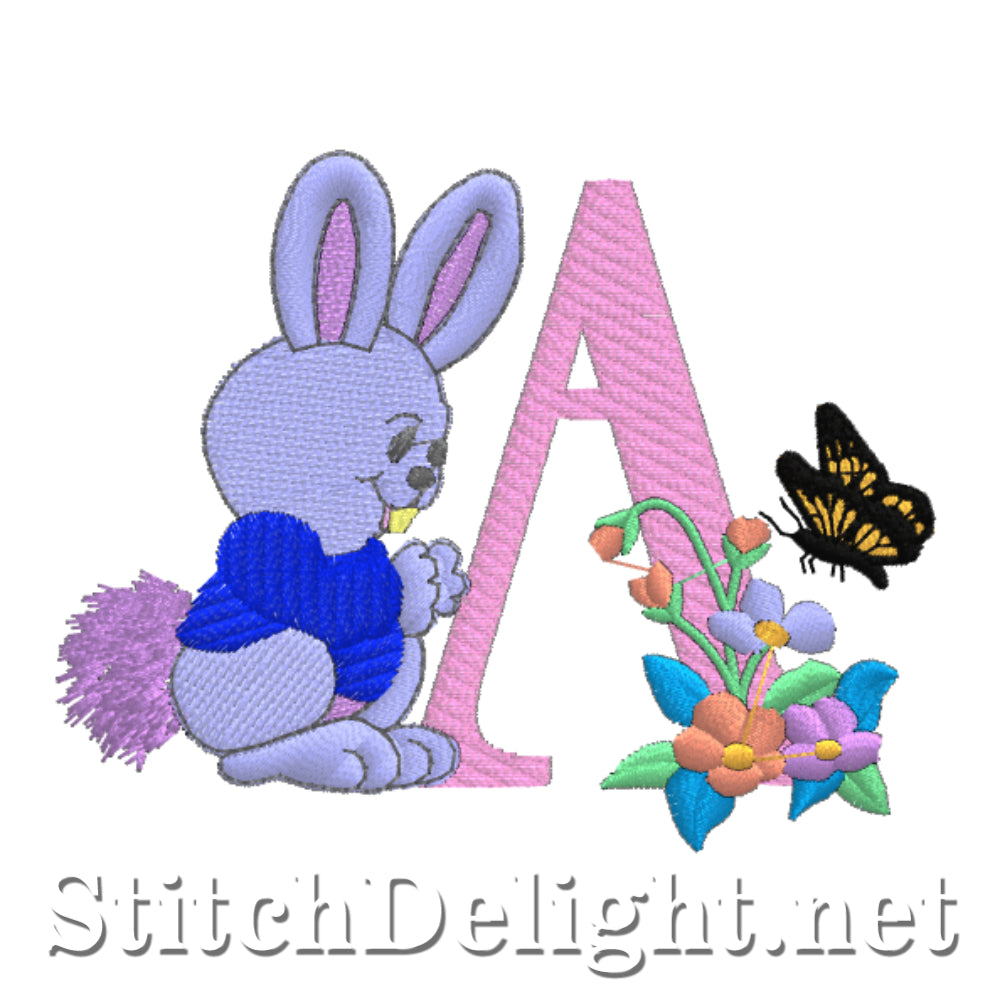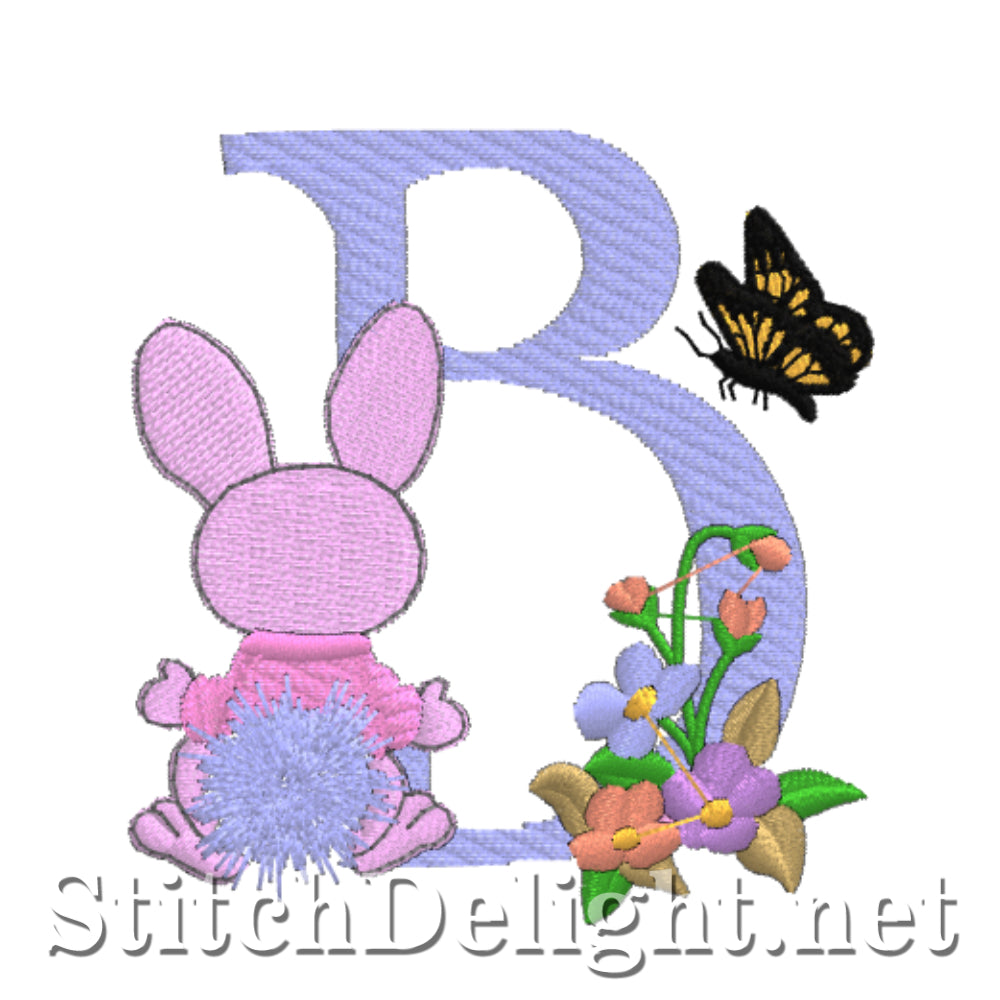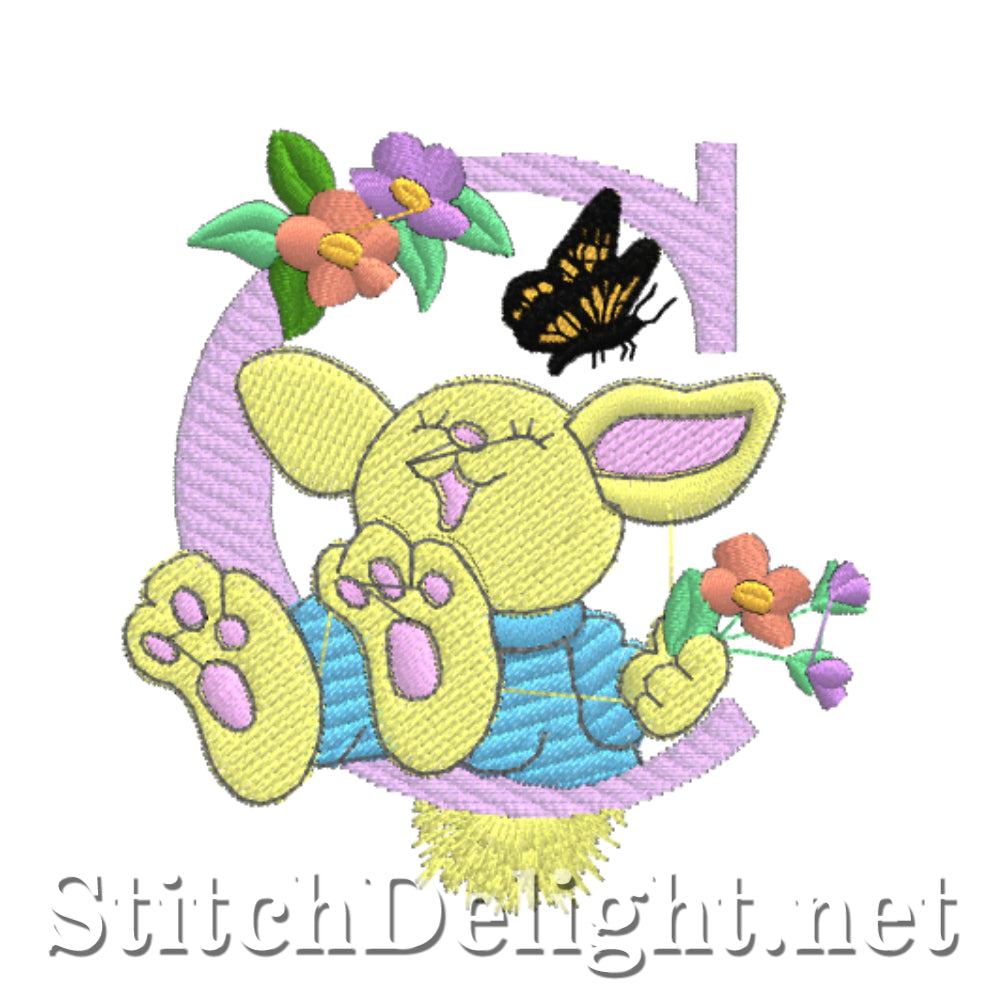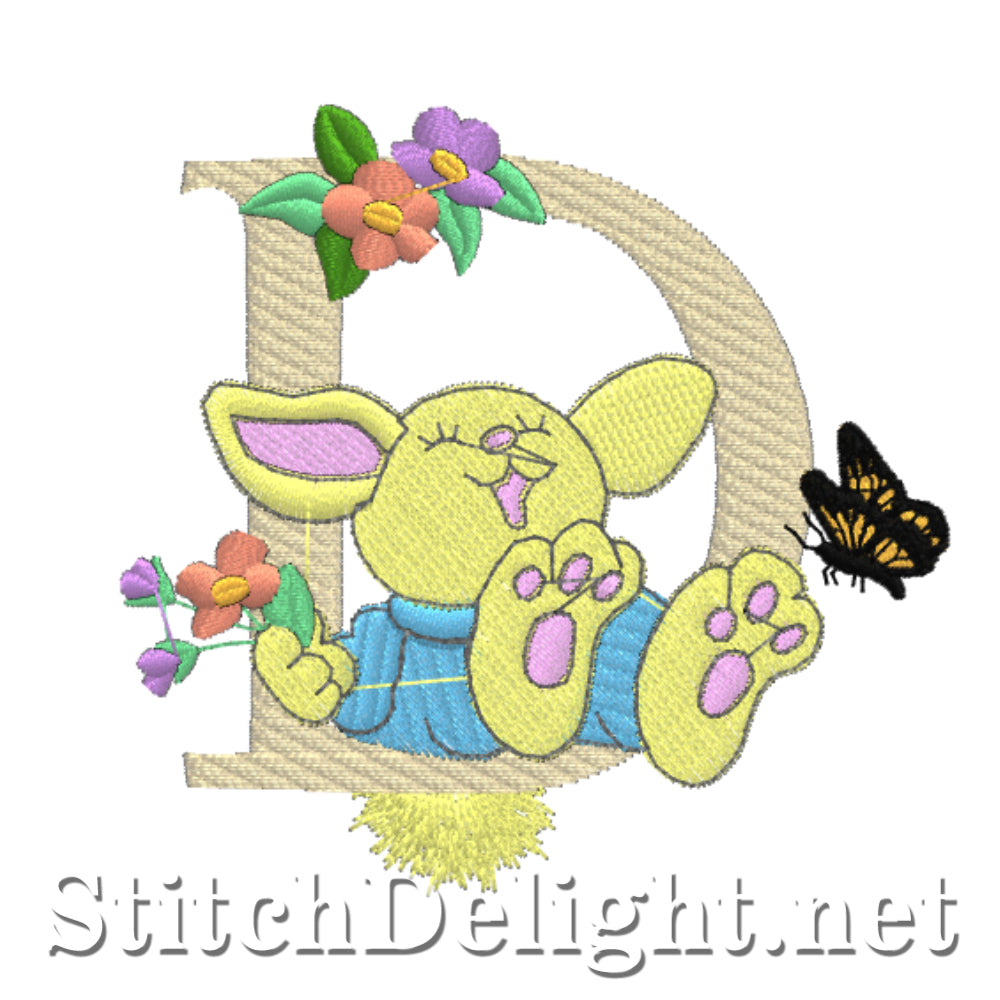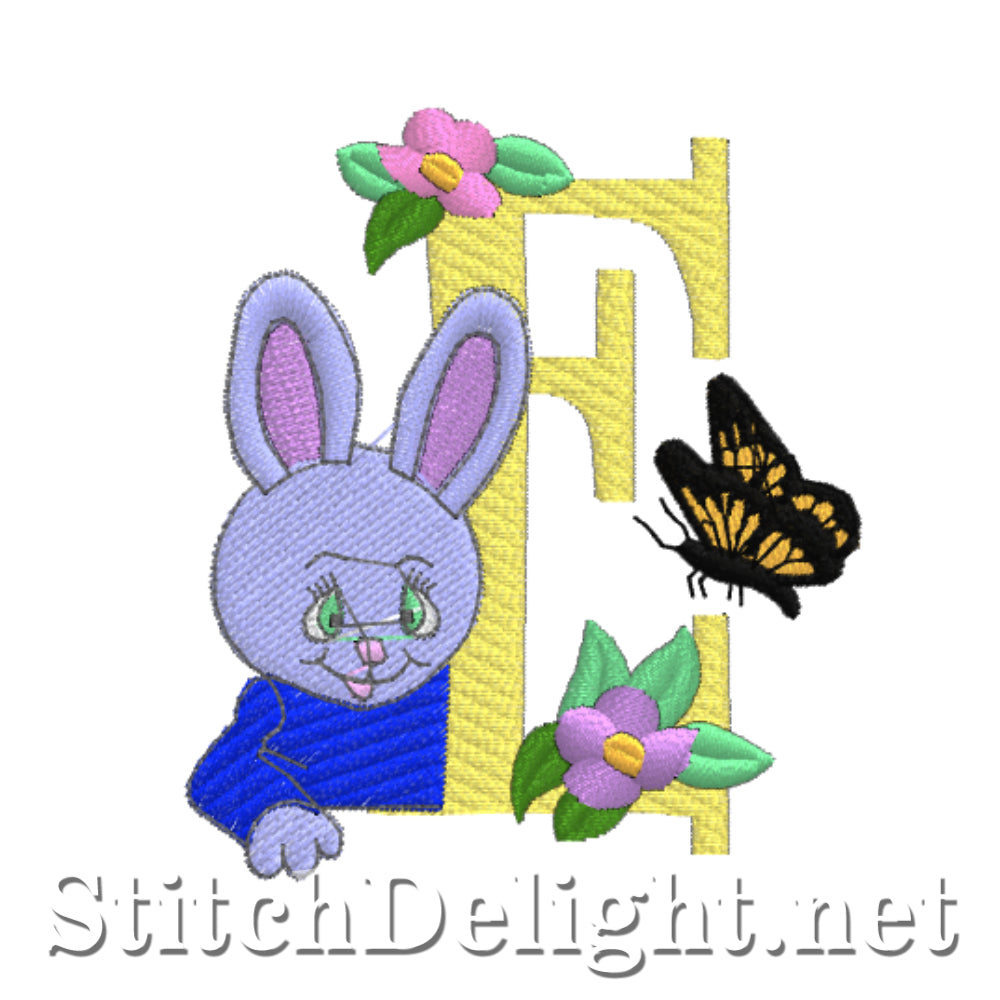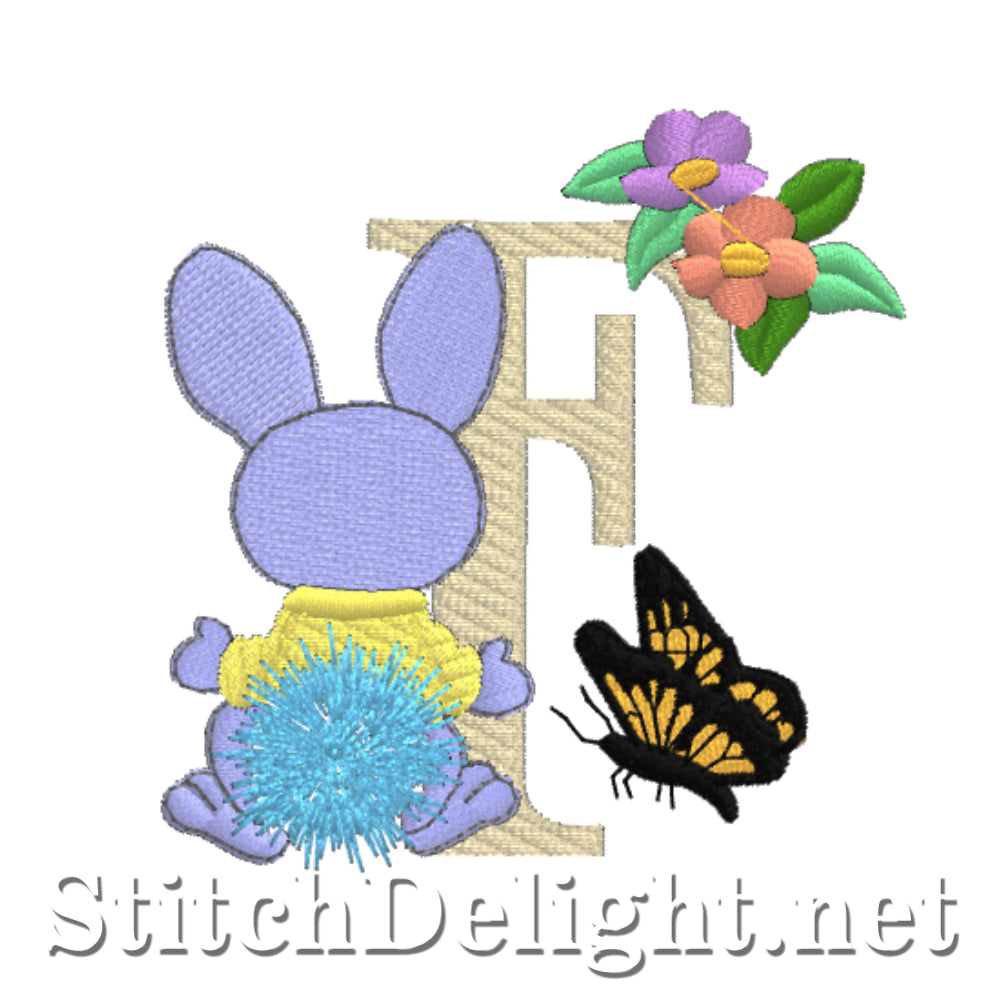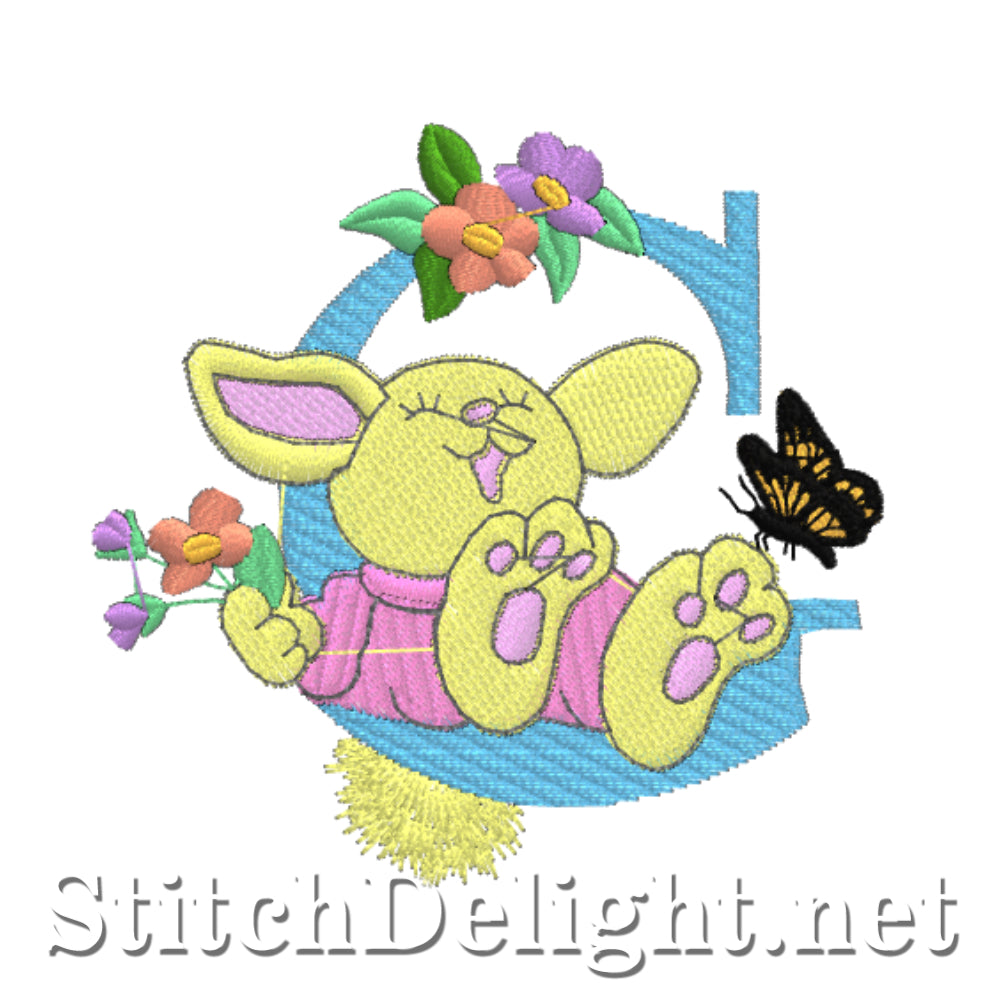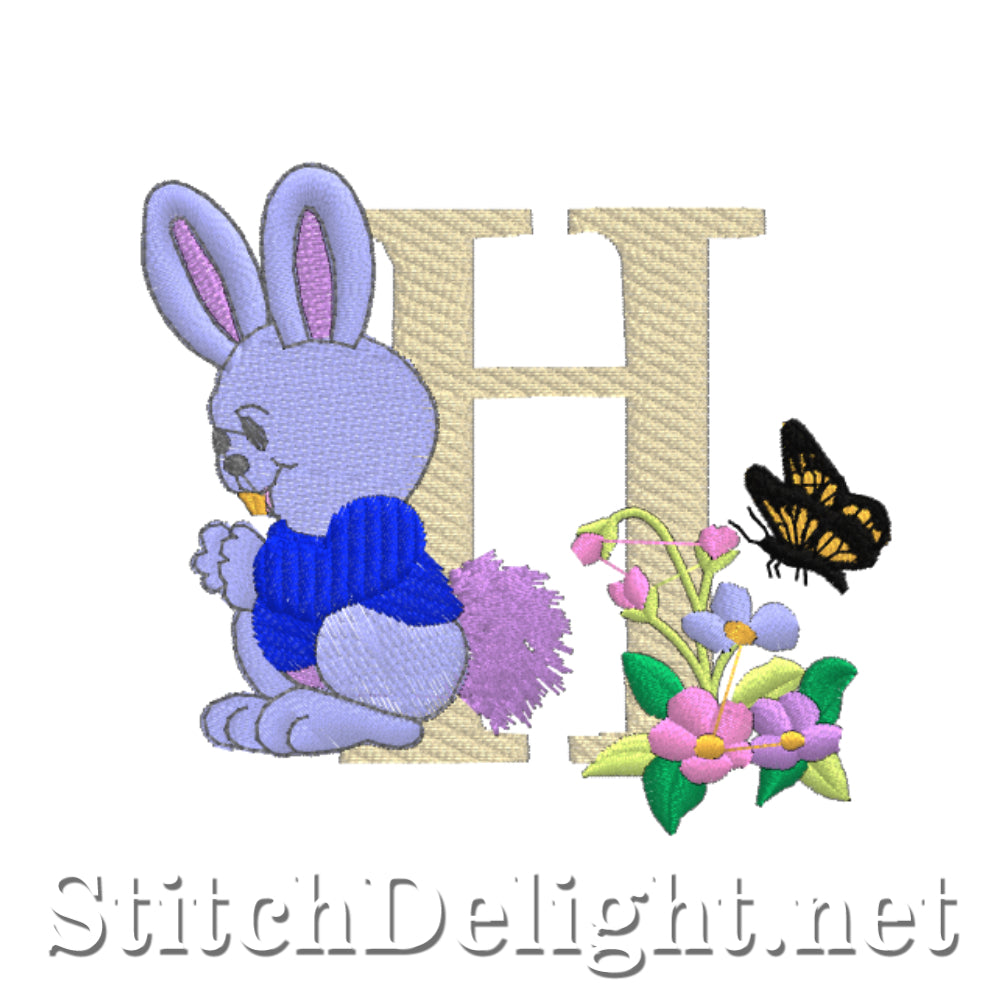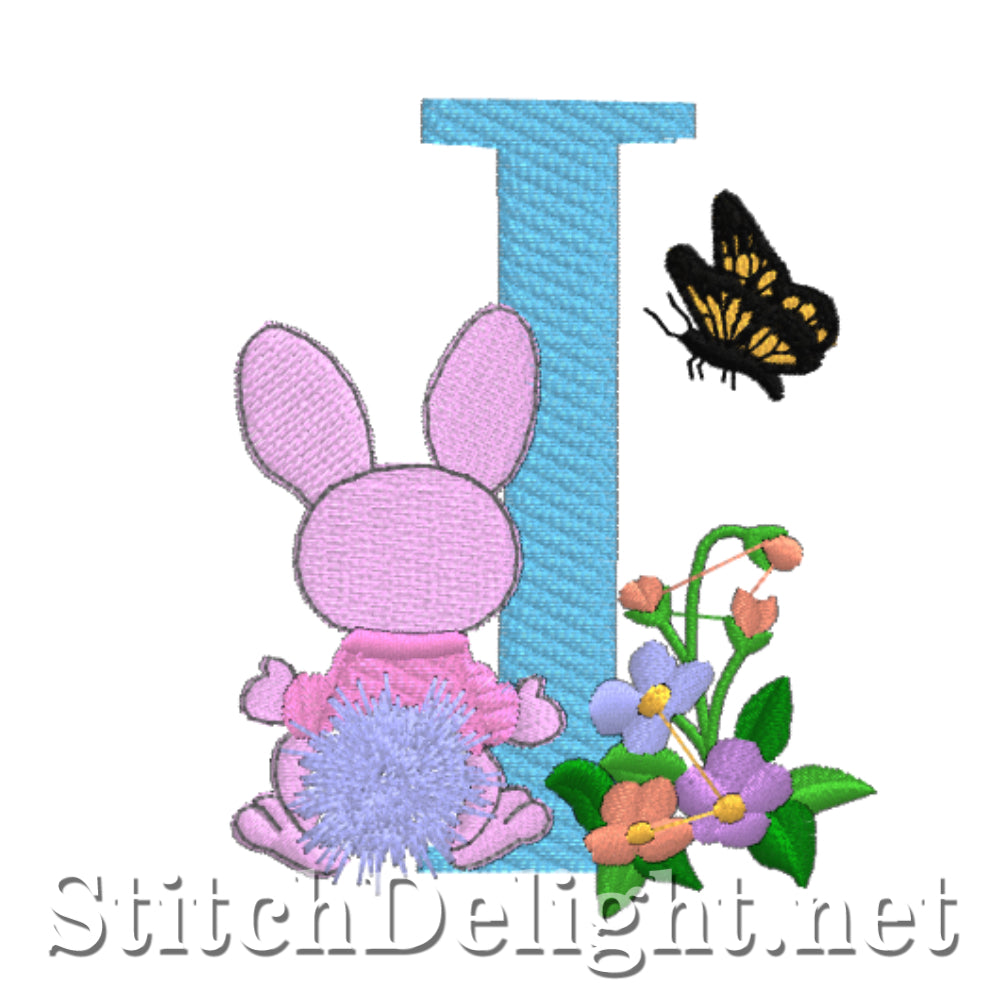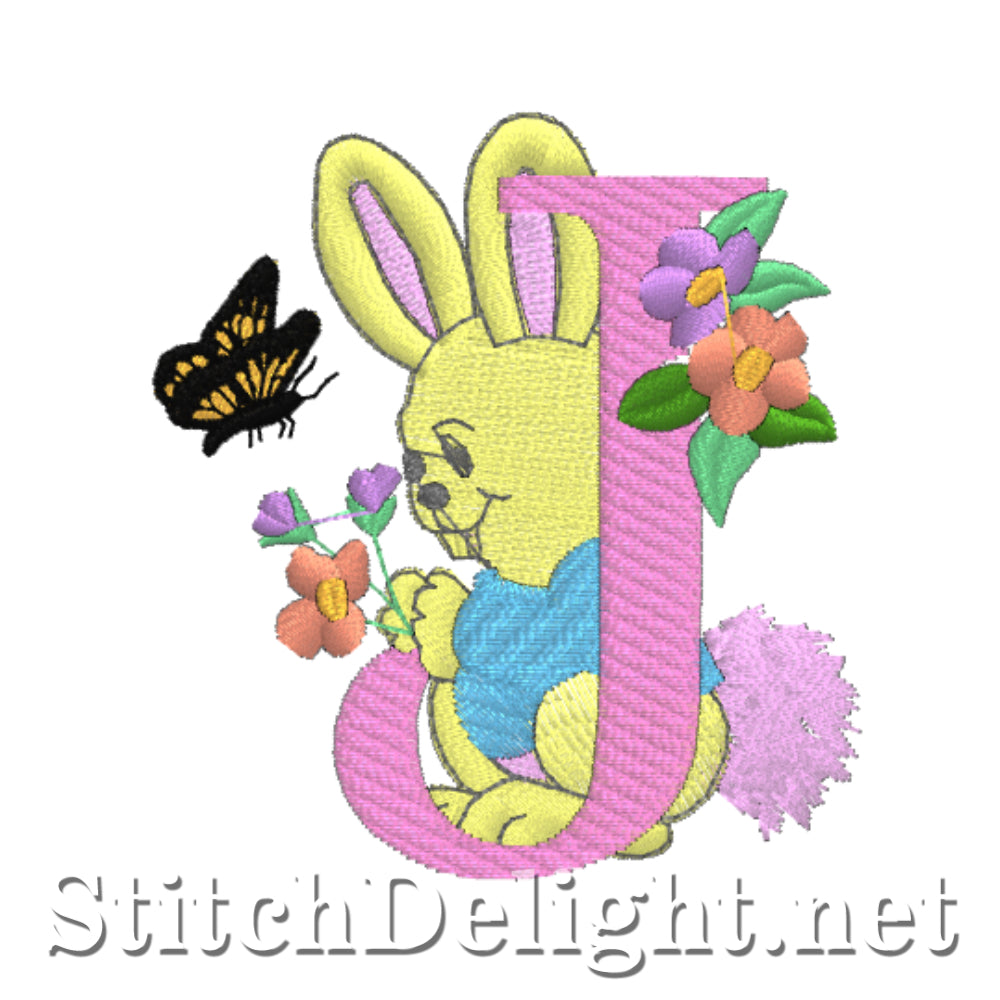
With this elegant font, you can add a touch of elegance to any of your projects.
Whether you're a beginner or an avid embroider this font is super fun, quick and easy to stitch.
Let your imagination soar as you use this font into your designs. From stunning wedding invitations to eye-catching logos, names and everything in between.